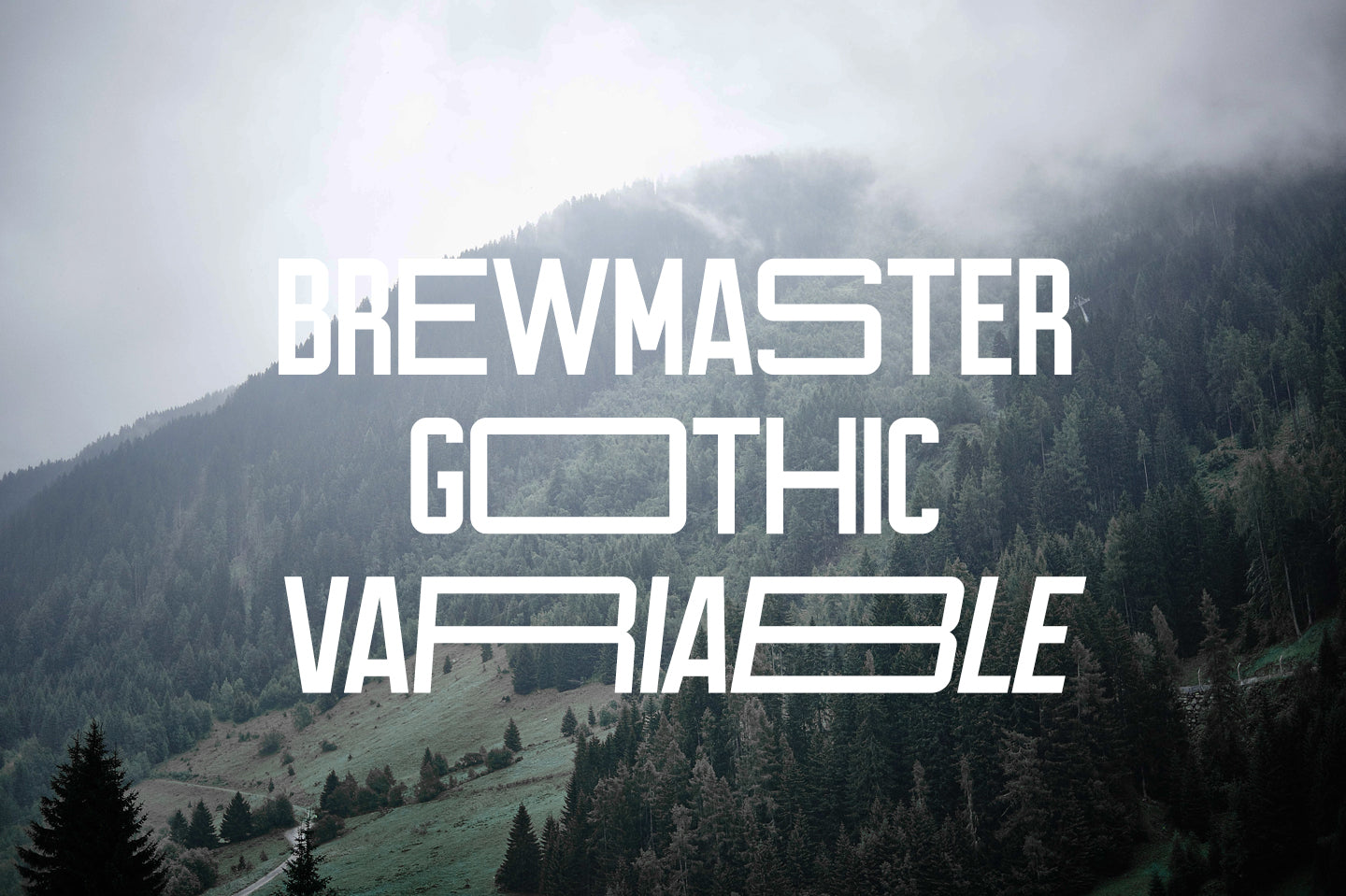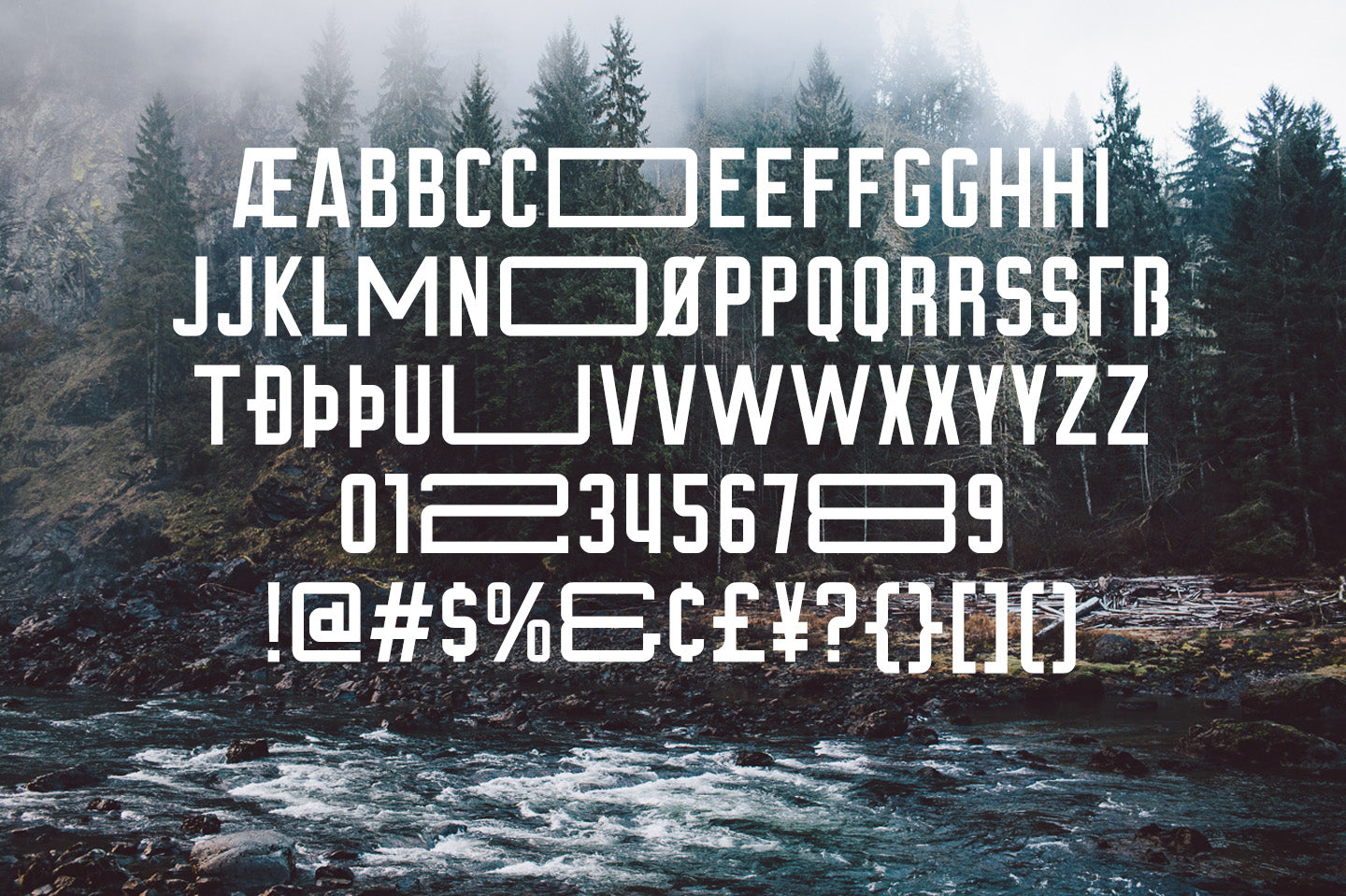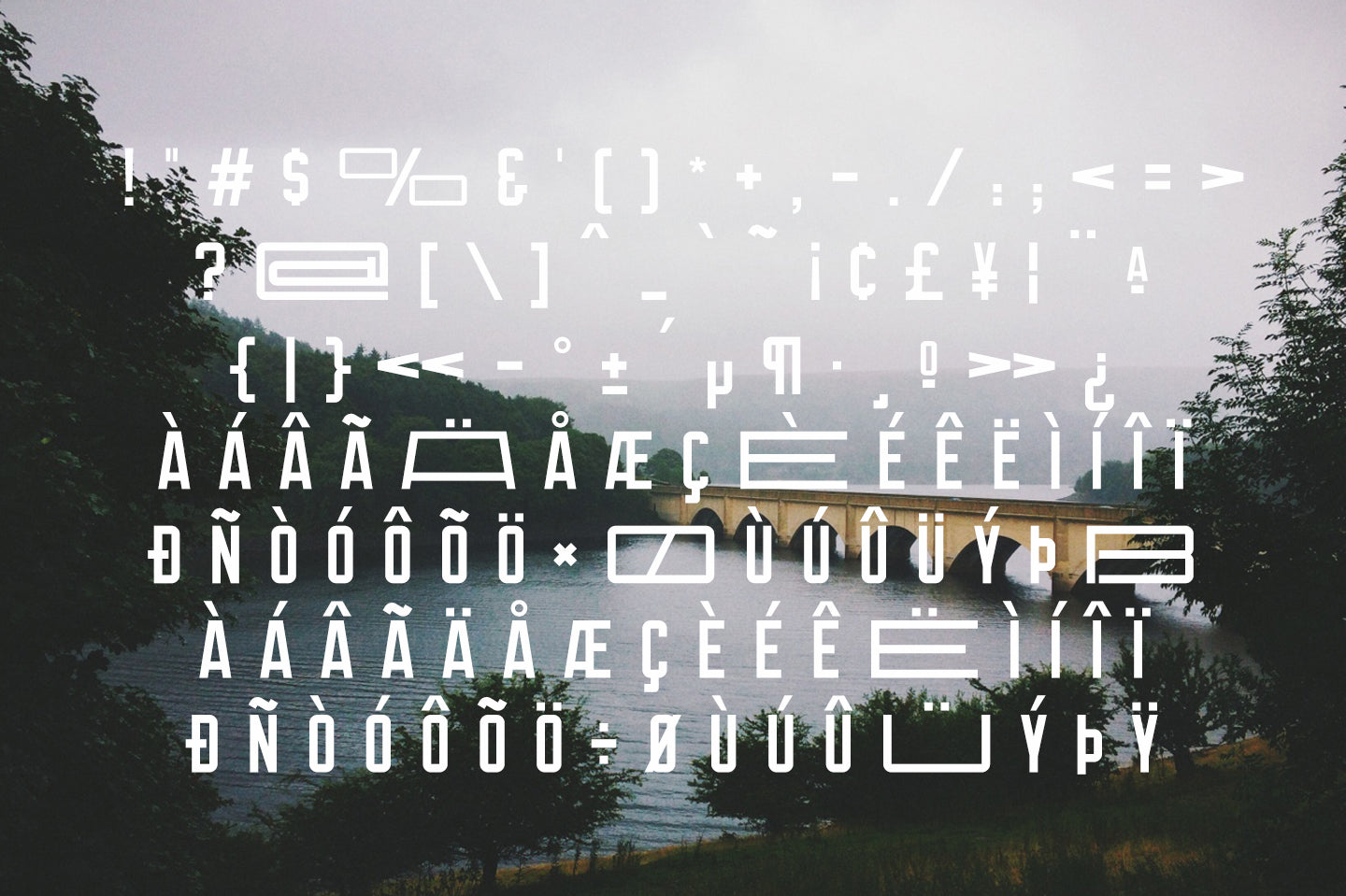
Brewmaster Gothic
In our hometown, there is a brew pub with a huge outdoor mural featuring its name. The brew pub name is painted in 8-foot tall letters on the brick facade over it's outdoor patio. To create Brewmaster Gothic, we took inspiration from that mural and applied it to our Turbonacular font, replacing the rounded edges with square corners and angled lines.
The end result is a firm, structured gothic with a lot of character, a huge complement of accented and special characters, full punctuation set, and an alternate set of uppercase characters in the lowercase.
In spring of 2025, we took Brewmaster Gothic back to the drawing board, merging Brewmaster Gothic Regular and Brewmaster Gothic Italic into a single master Brewmaster Gothic Variable Font (VF). Brewmaster Gothic can now be interpolated along the slant axis from 0 to -12 degrees.
Alongside the slant axis, we were also able to generate two new instances to scratch your variable width itch: Ultra Expanded and Ultra Expanded Italic.
A few new glyphs have been added as well, for good measure.